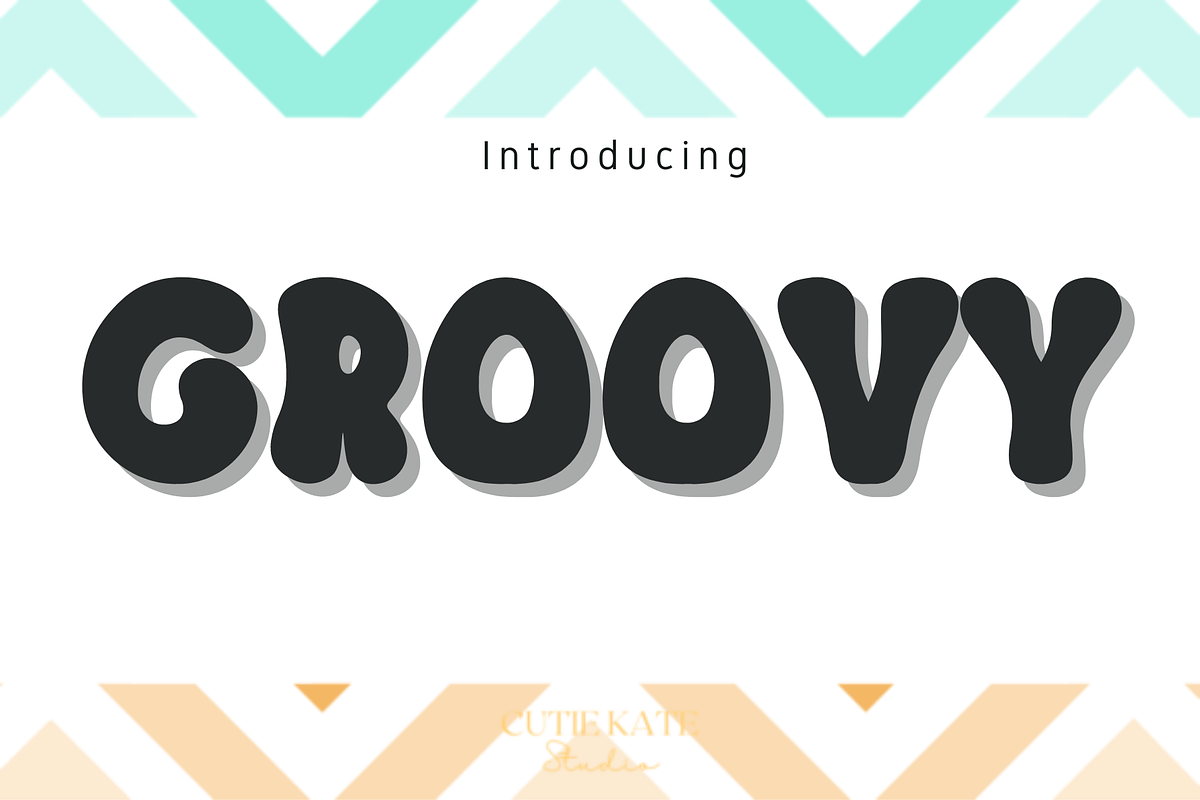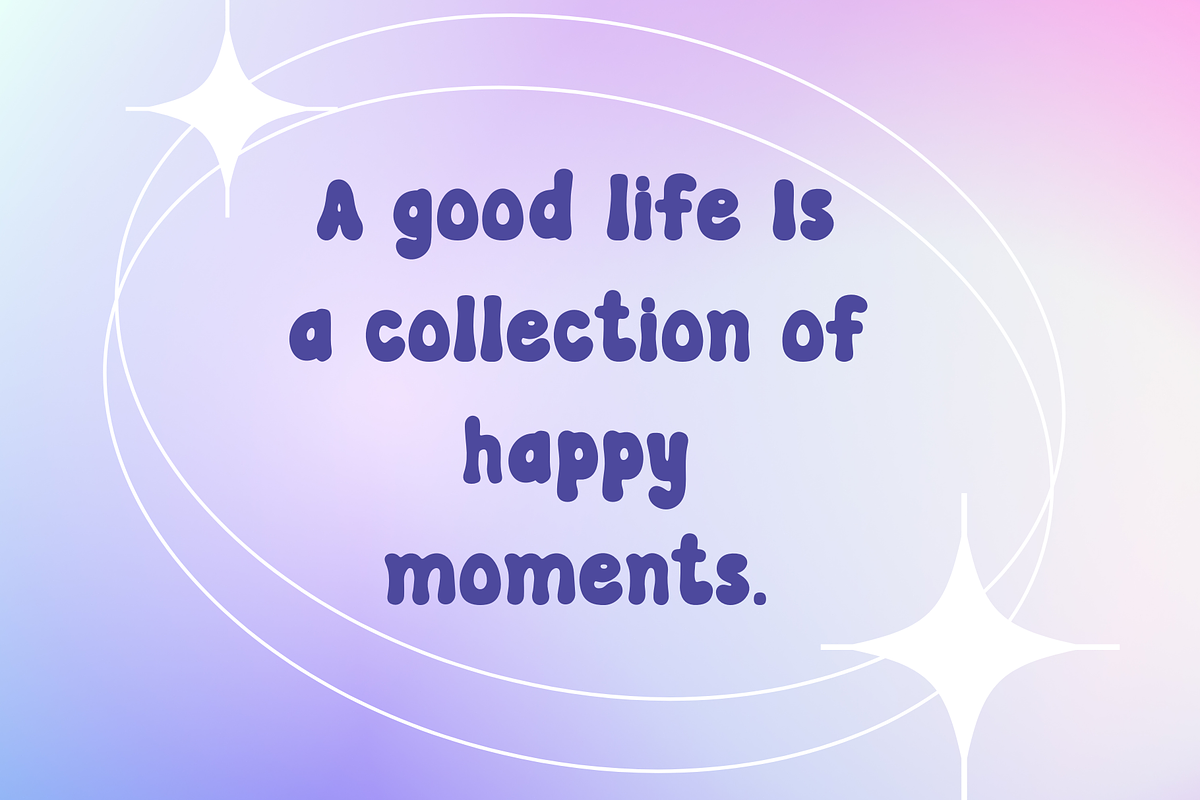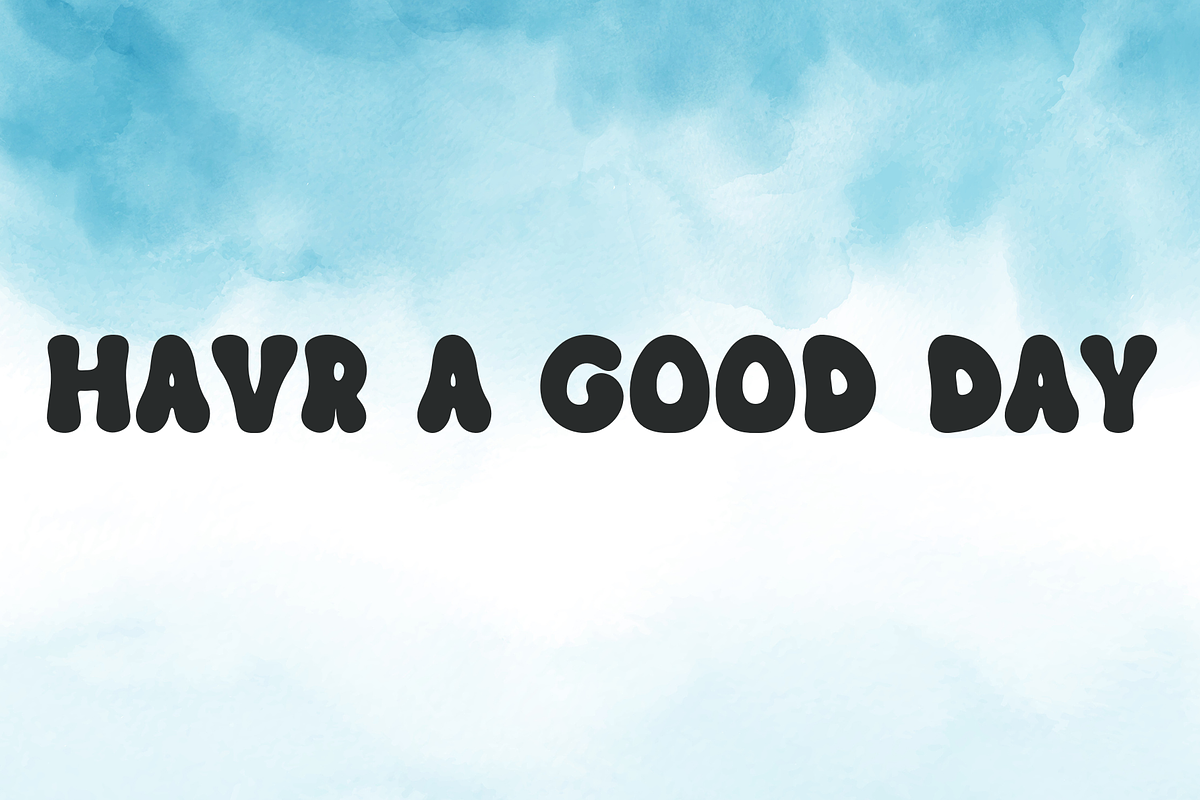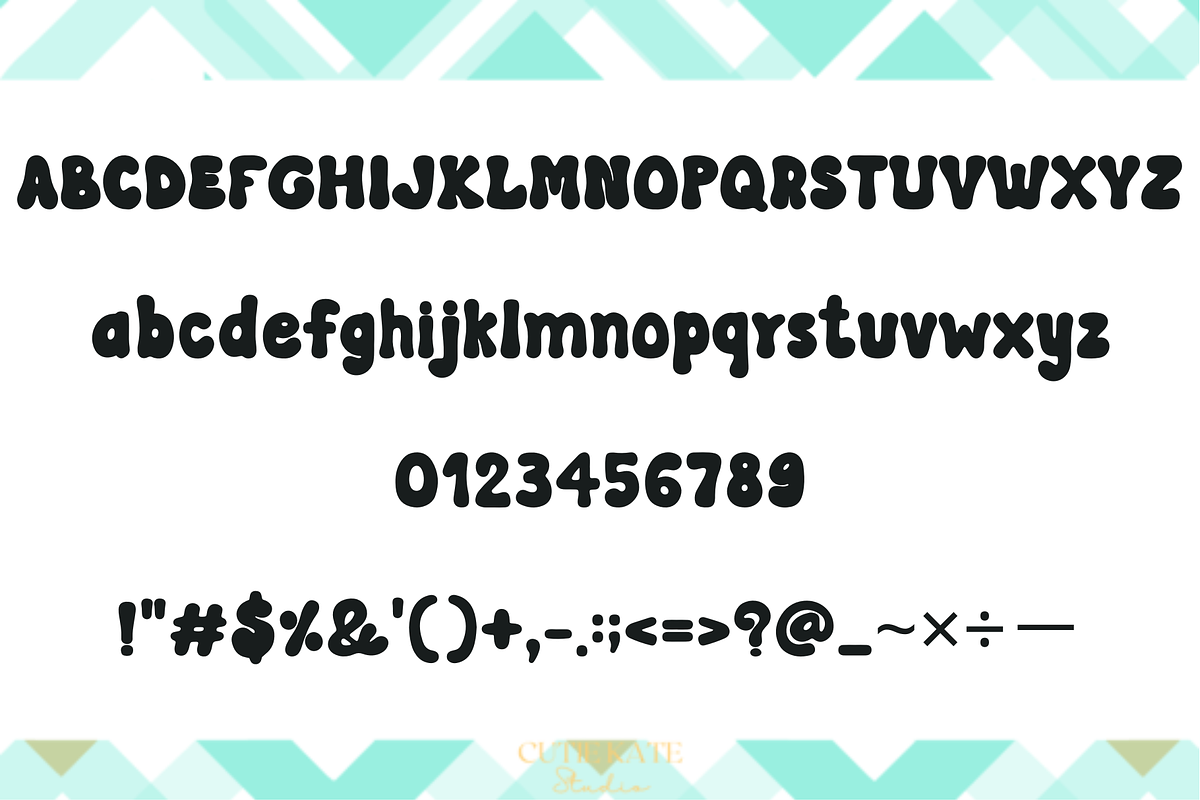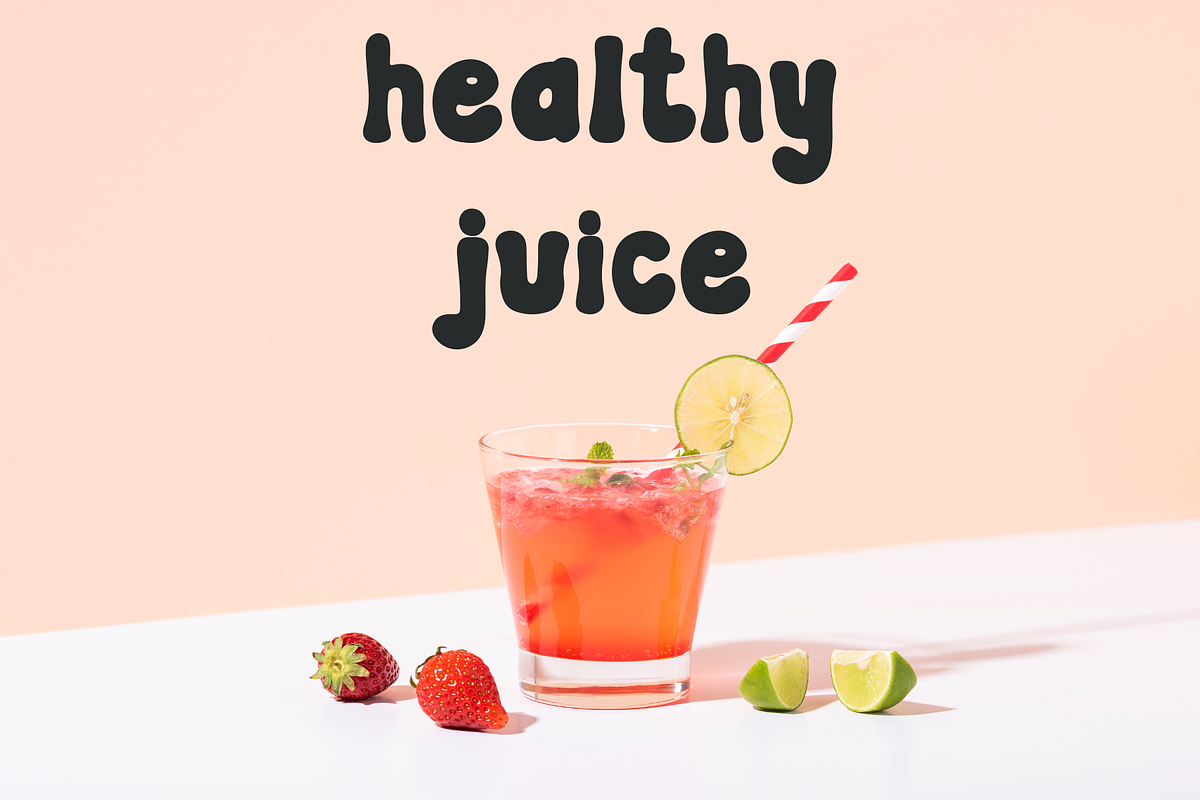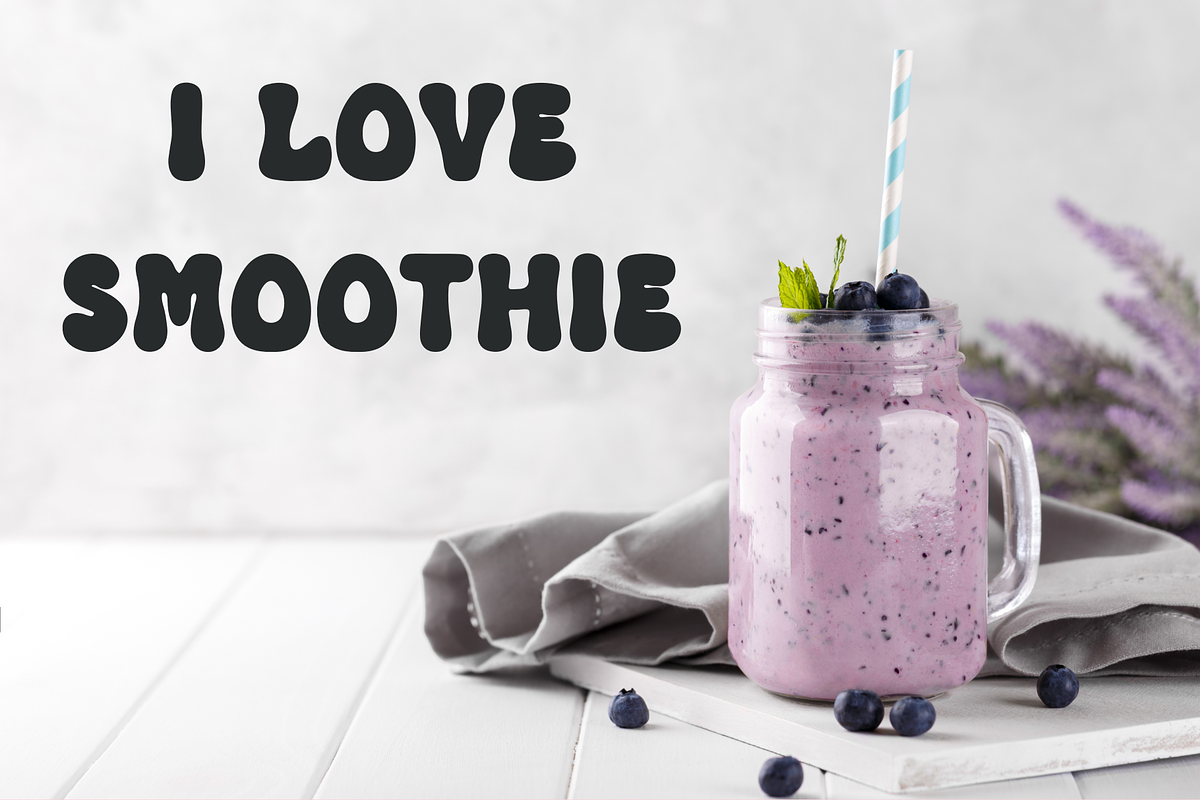
Groovy Font
Groovy Font is a cute, groovy, and display font suitable for designing T-shirts, tote bags, hats, stickers, wedding invitations, logos, cards, quotes, and more! Groovy will make any creative idea stand out and stunning!